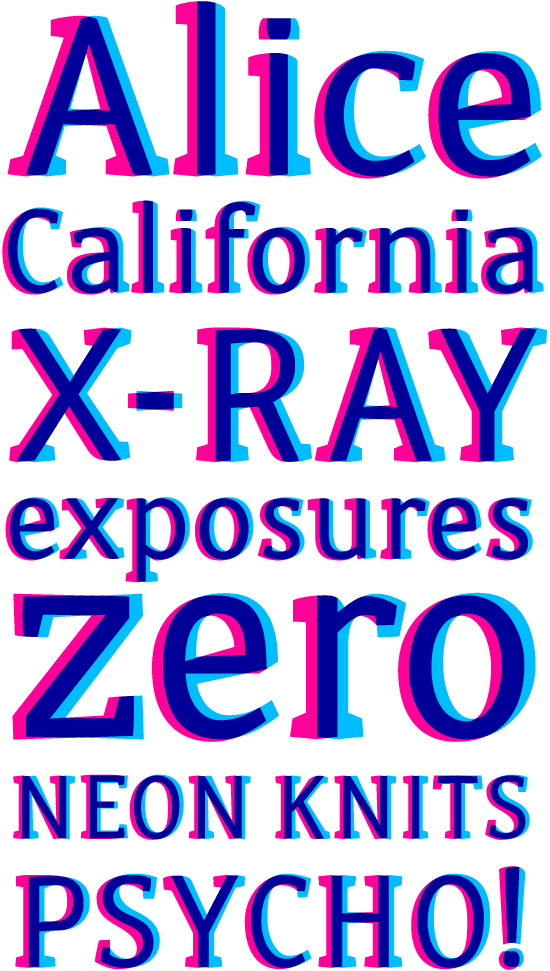
Causing typographic classification experts to reach for, then throw out their copy of Vox, Sodachome is a chromatic concoction of two parts serif forming one part sans. The alphabet is an original design by Ian Moore and Dan Rhatigan of the The Colour Grey. Ian and Dan took the tradition of chromatic alphabets and explored what would happen if the chromatic overlap created a secondary alphabet design. We’re happy to offer the design to Photo-Lettering users.